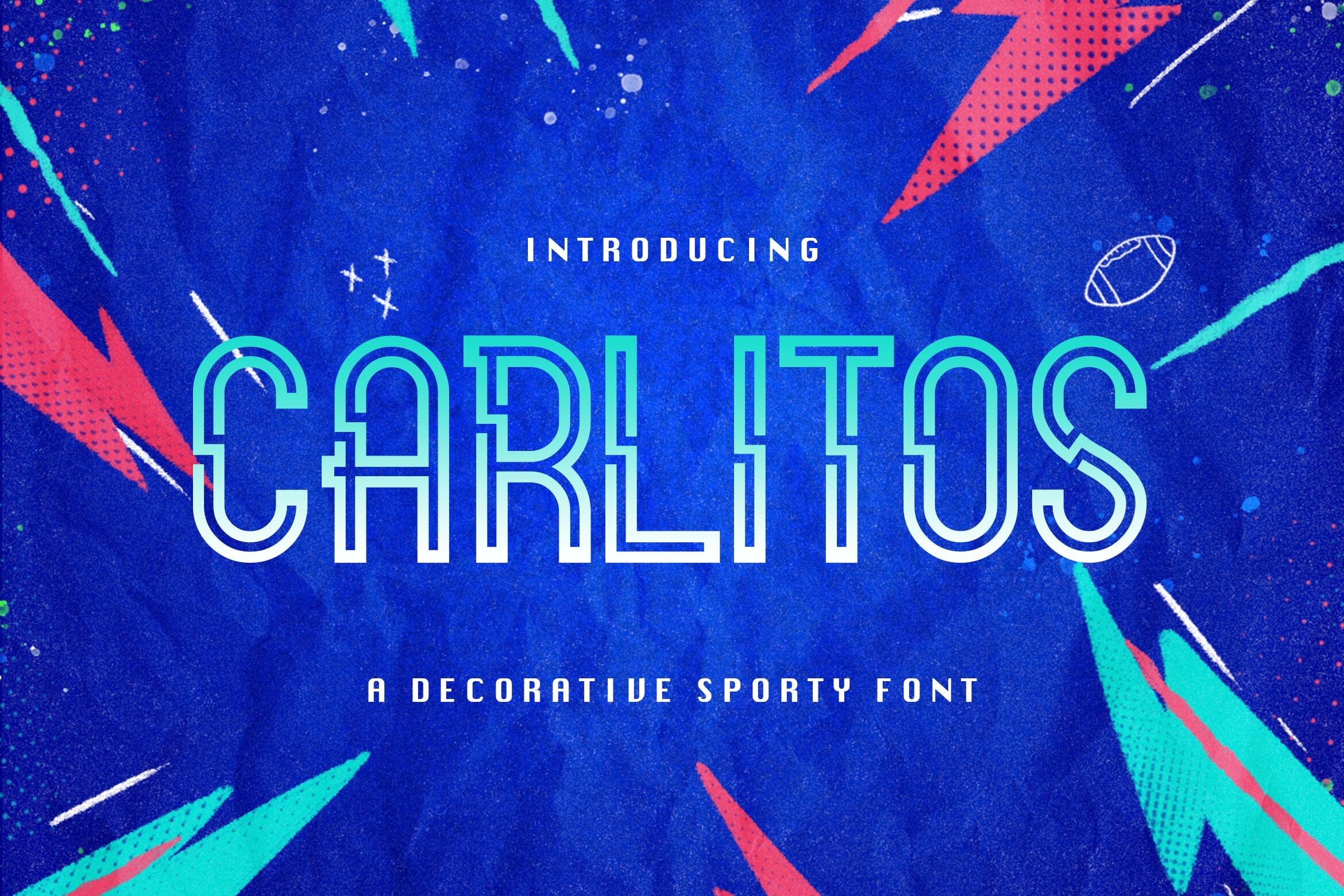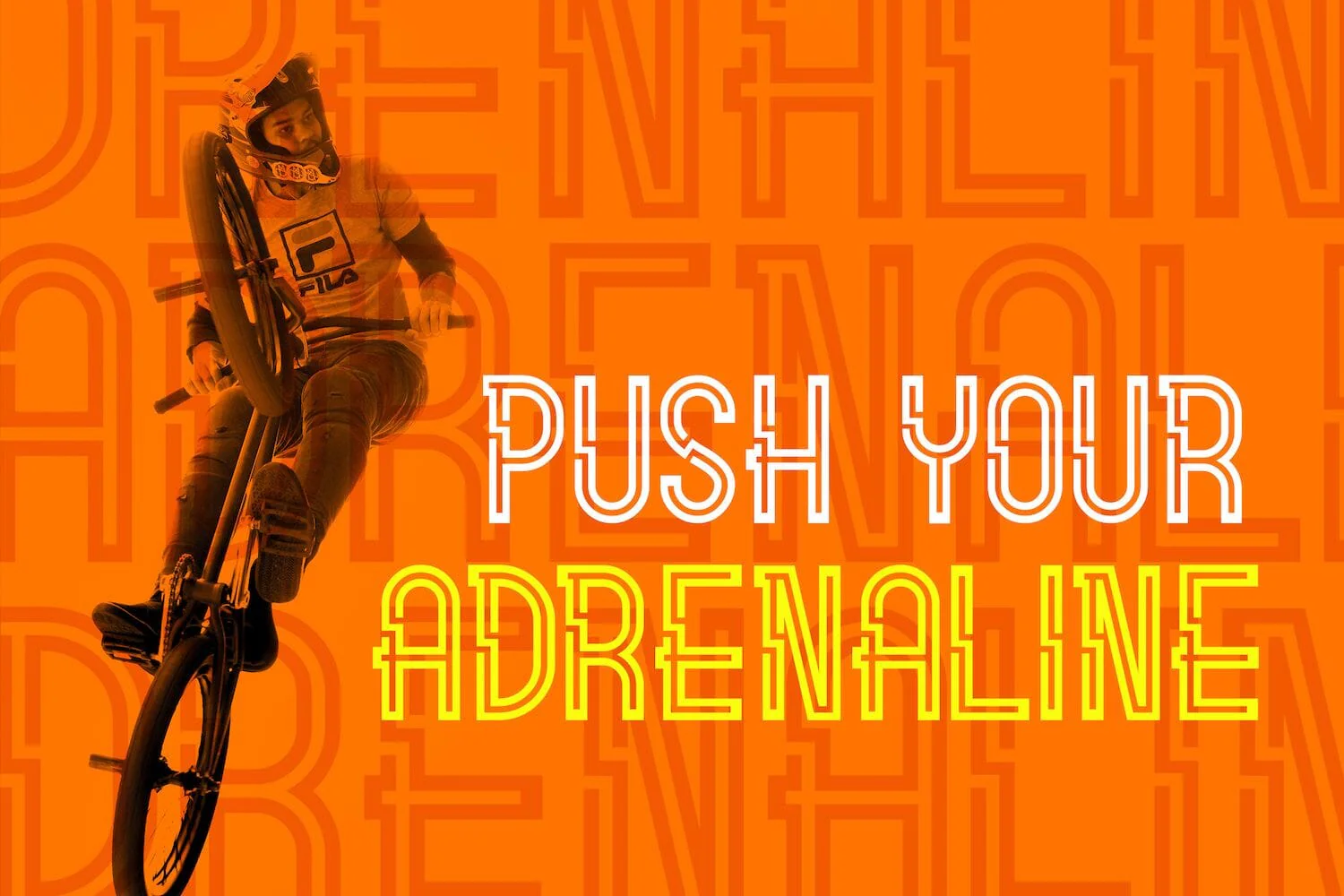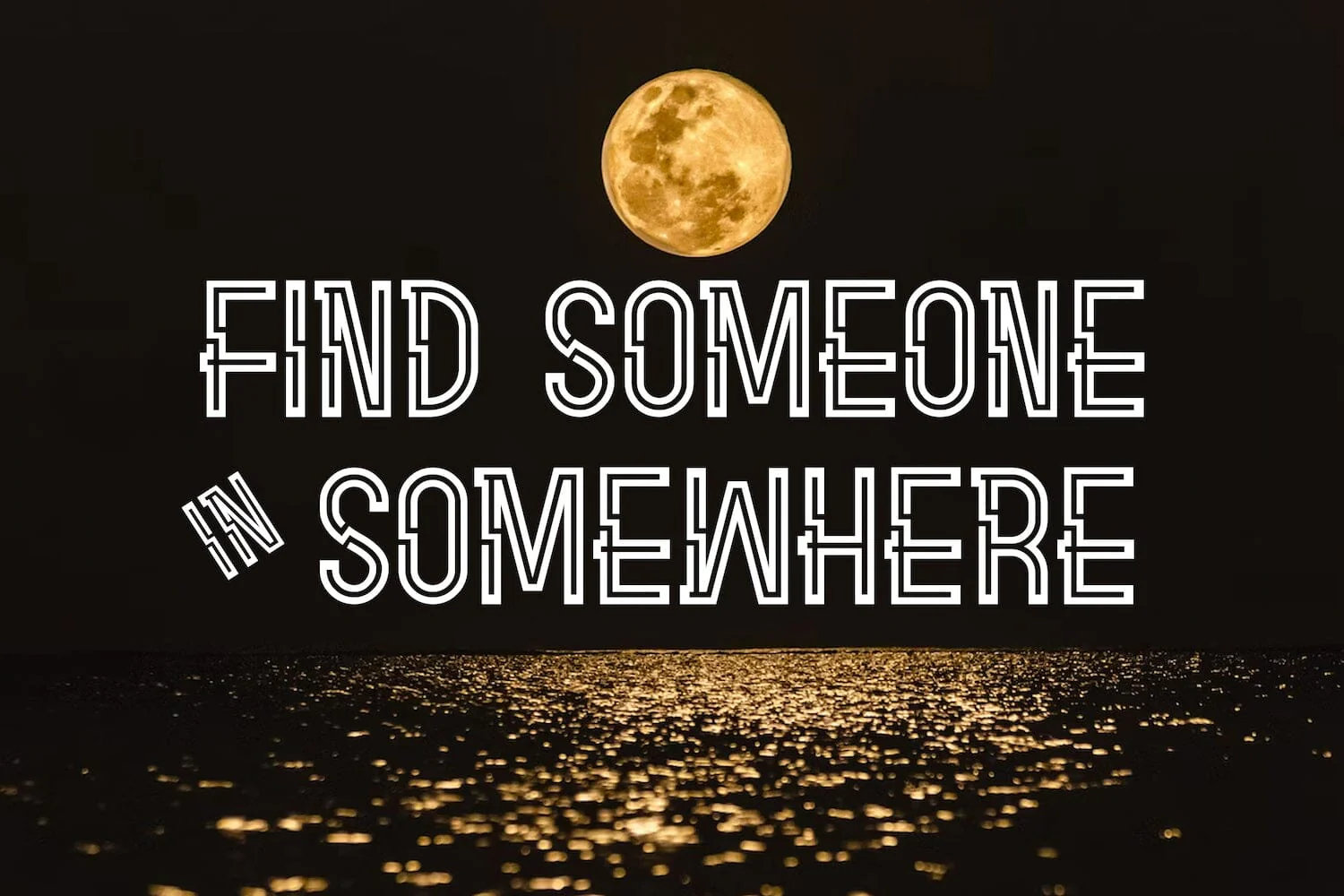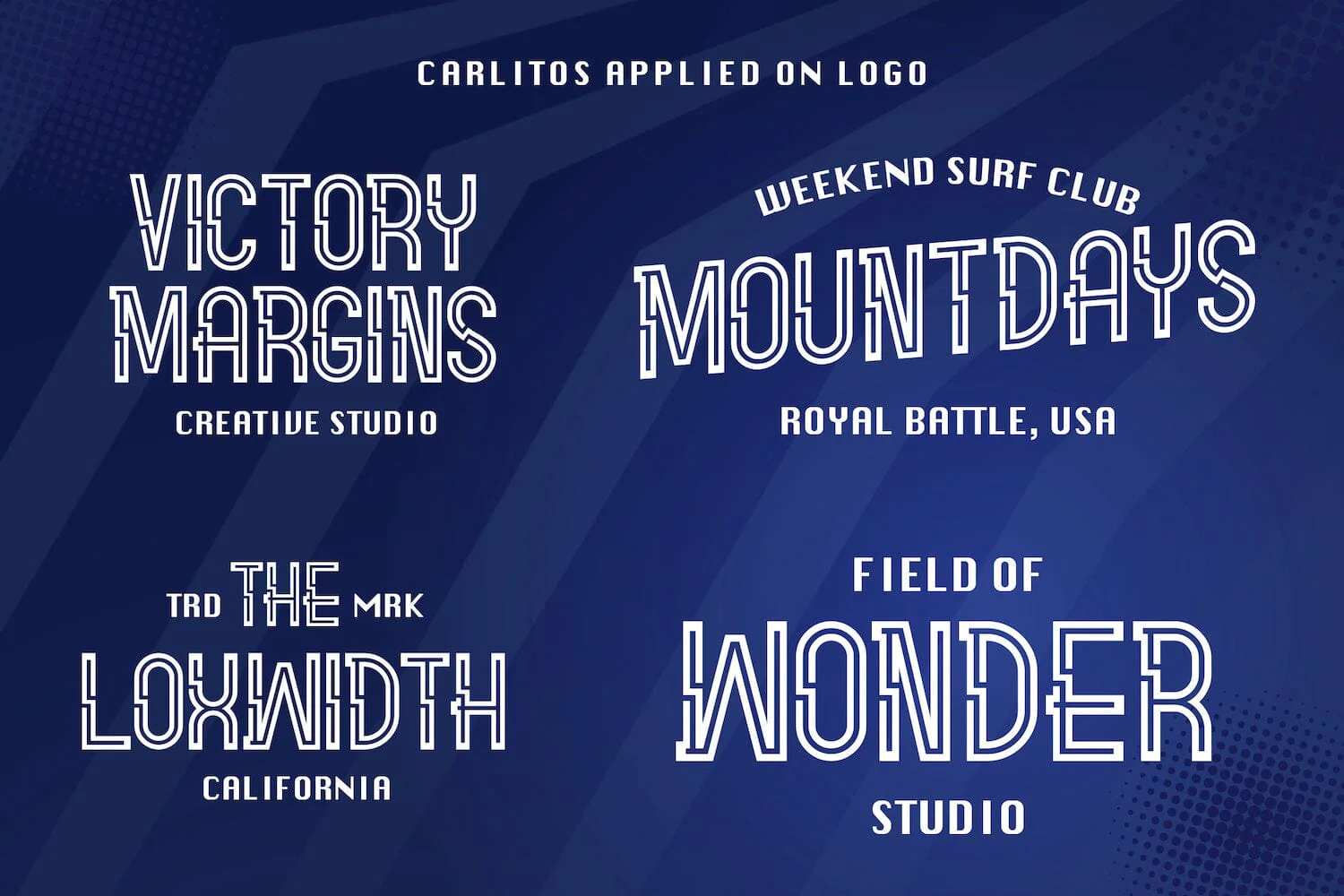
Carlitos - Decorative Sporty Font
Introducing Carlitos - Decorative Sporty Font
Carlitos is a sporty and modern display font. This playfully conceptual typeface font will look truly outstanding in a wide range of contexts. This font is very suitable for your any sports needs, such as: Football Jersey, Basketball Jersey, Soccer Jersey, and Other Sports purpose.
Introducing Carlitos - Decorative Sporty Font
Carlitos is a sporty and modern display font. This playfully conceptual typeface font will look truly outstanding in a wide range of contexts. This font is very suitable for your any sports needs, such as: Football Jersey, Basketball Jersey, Soccer Jersey, and Other Sports purpose.